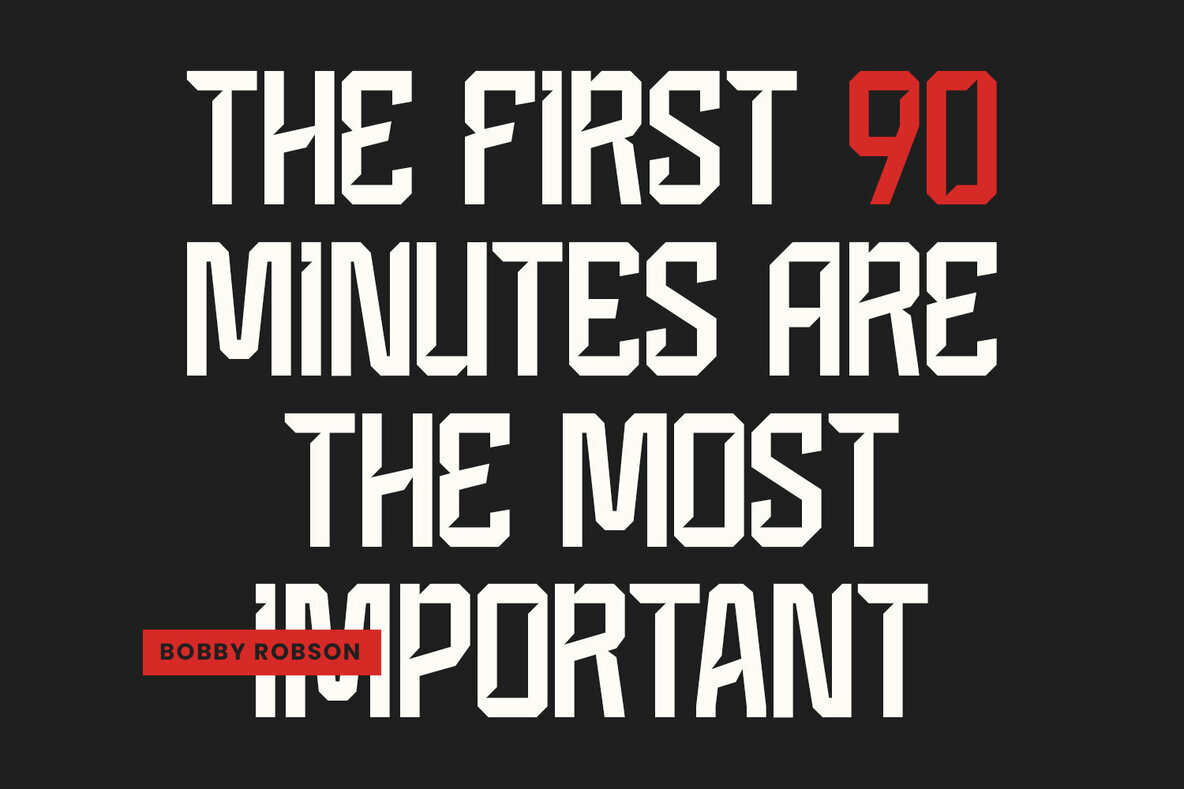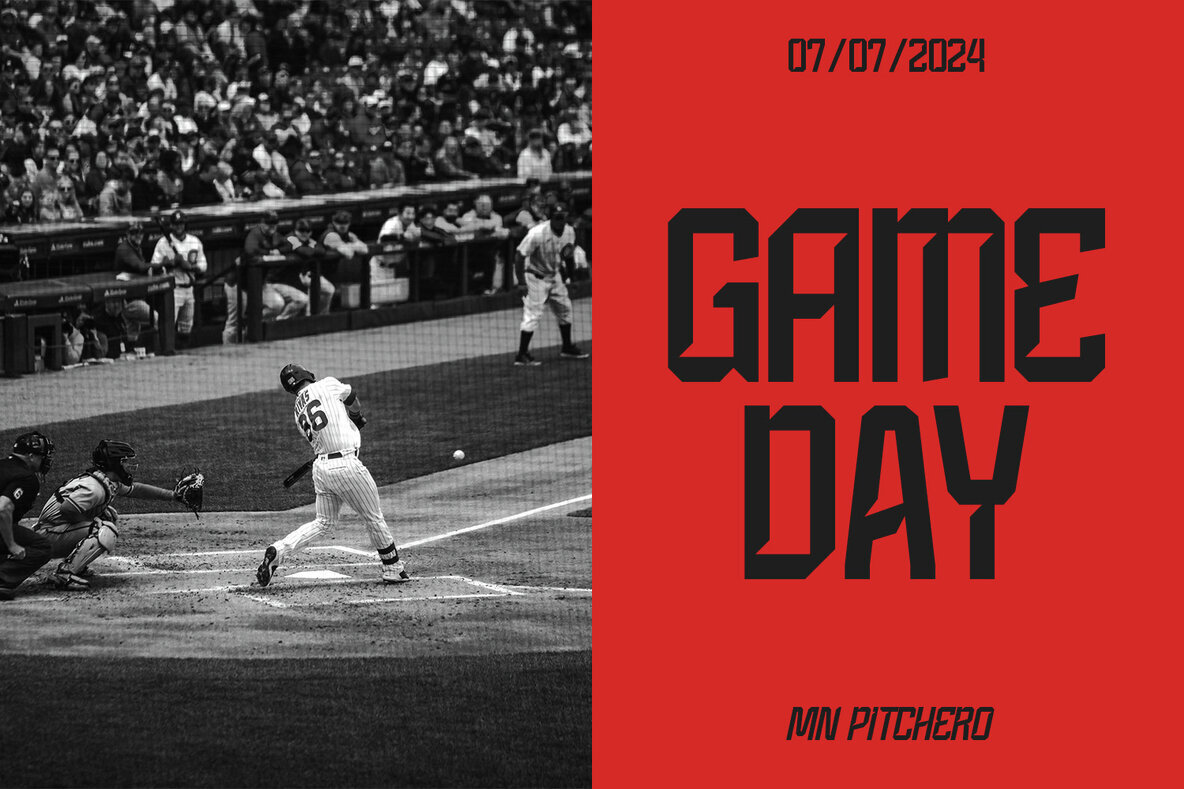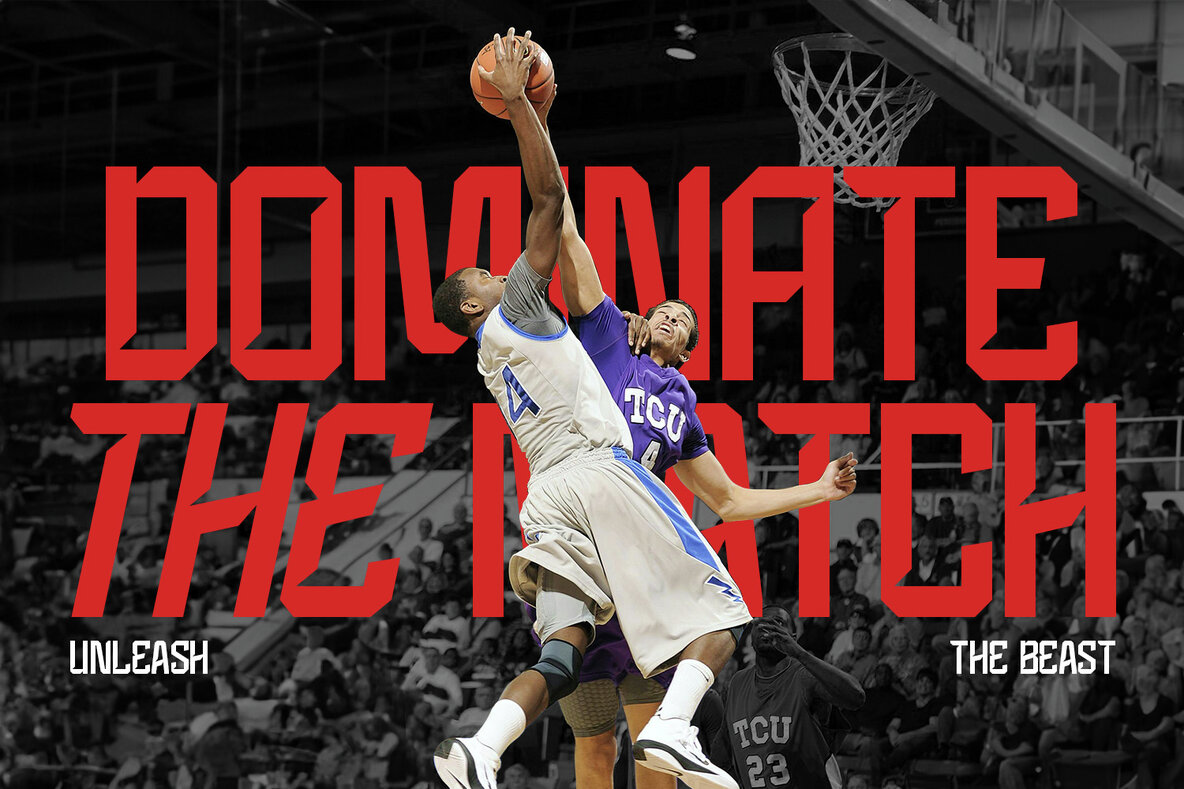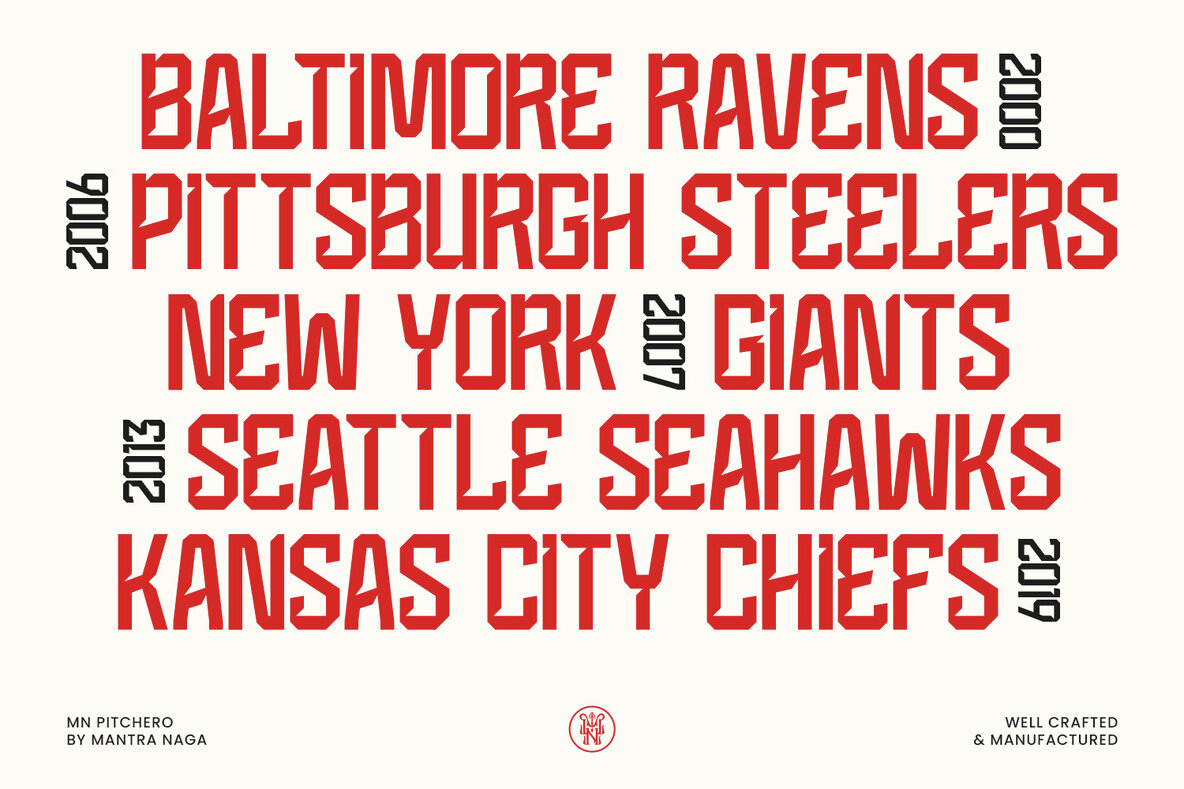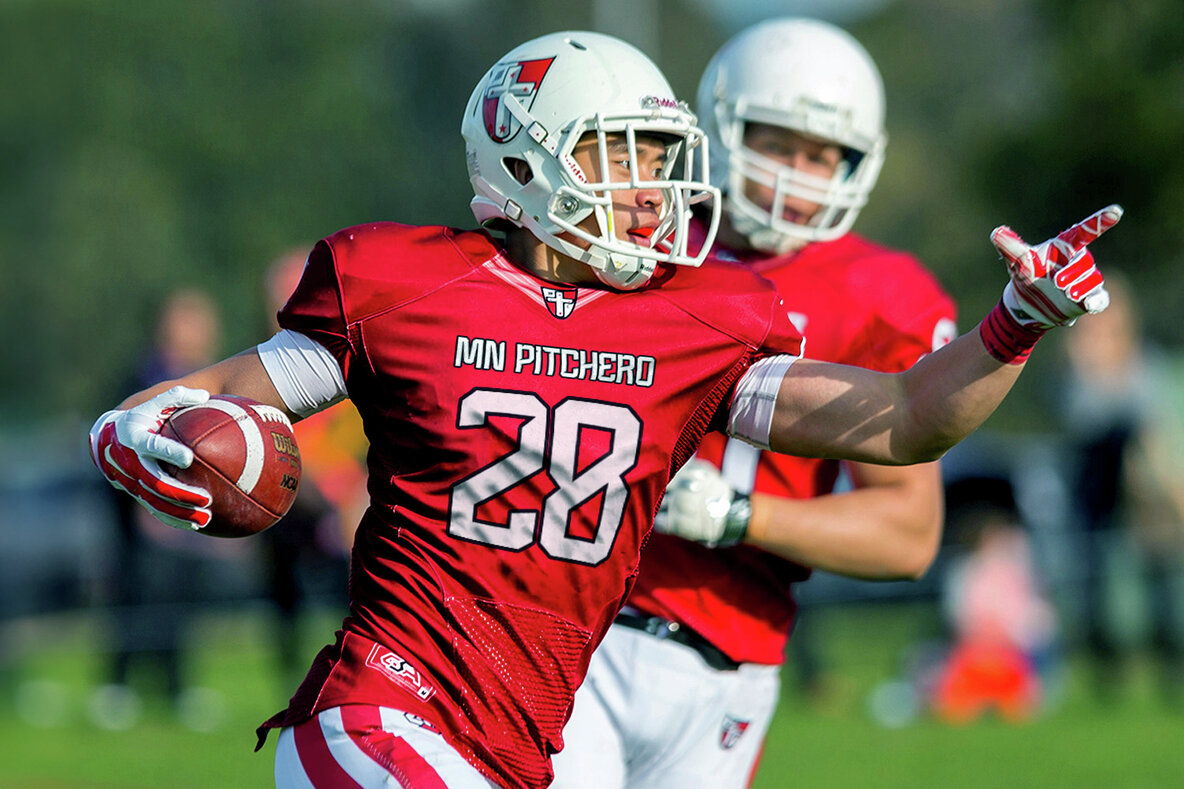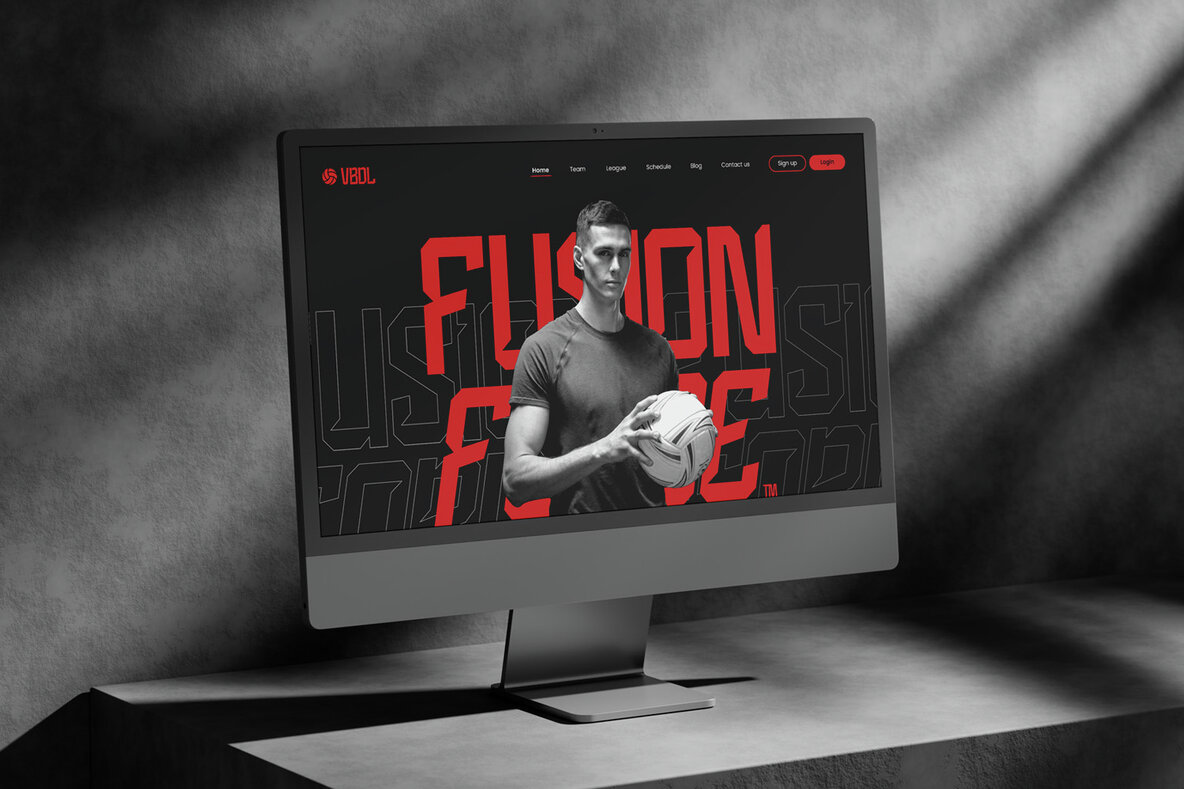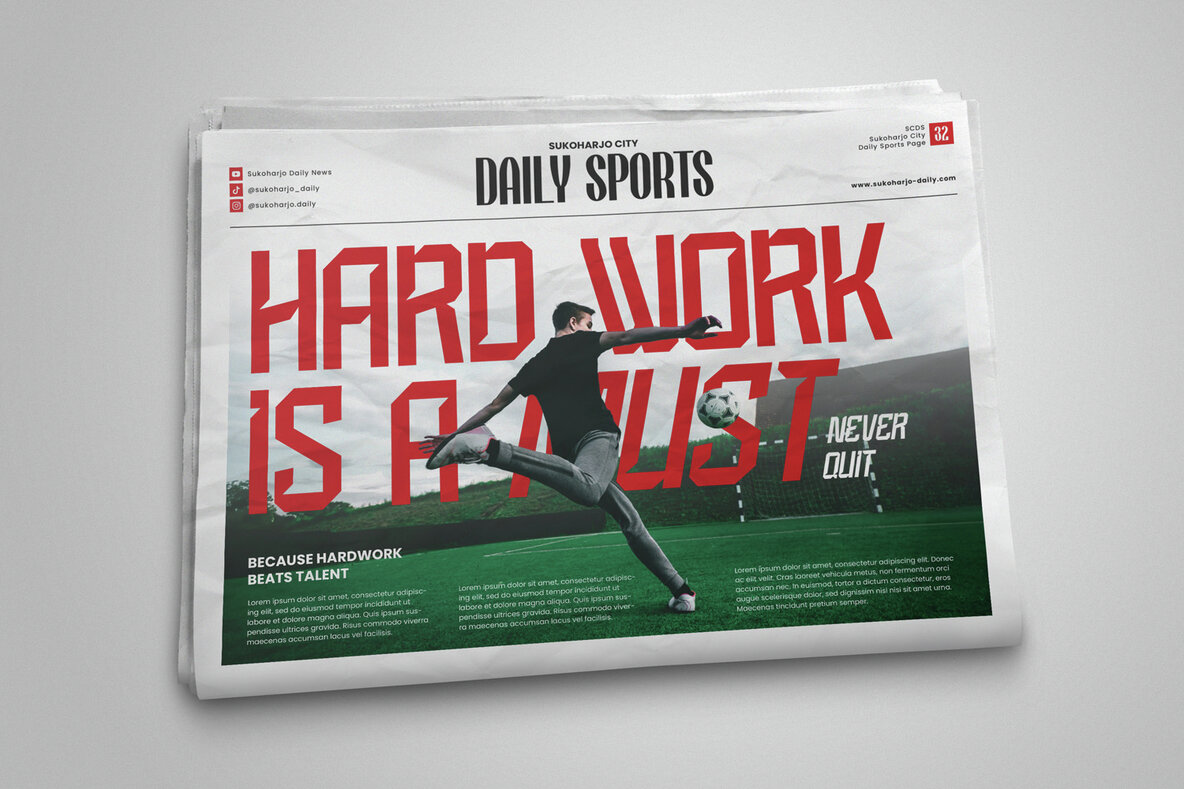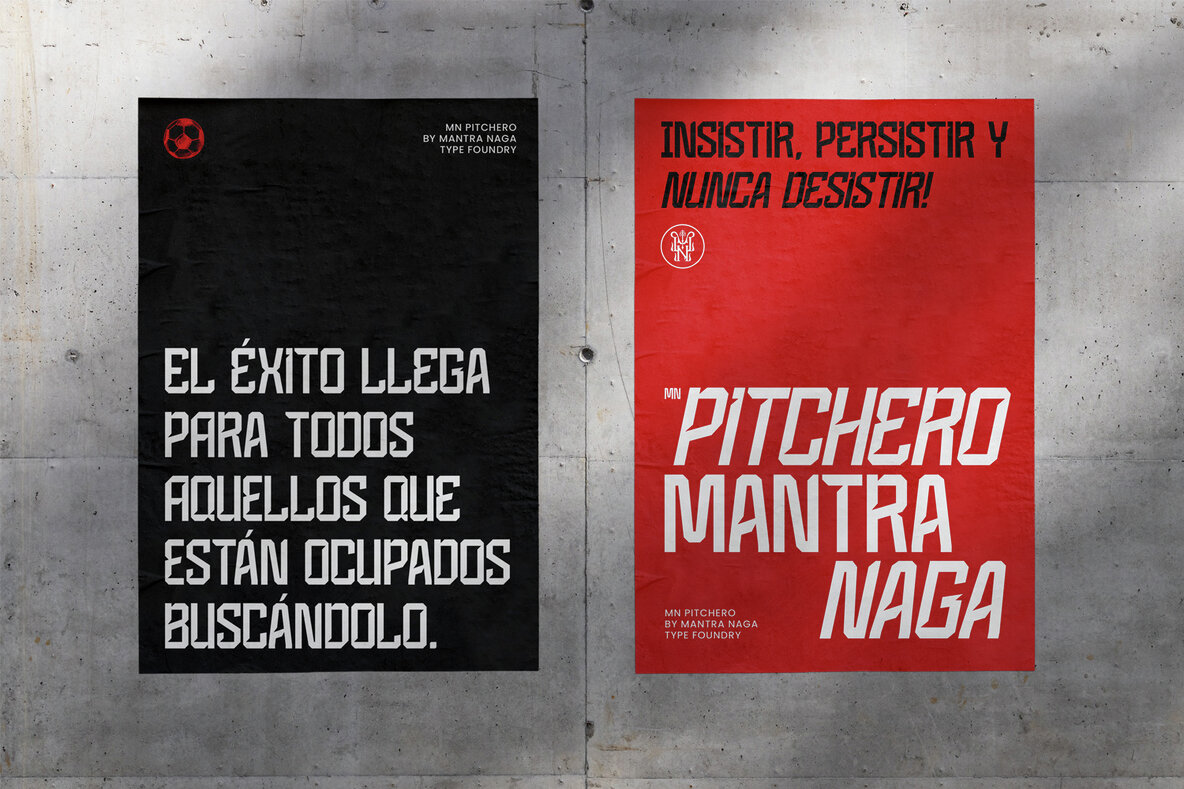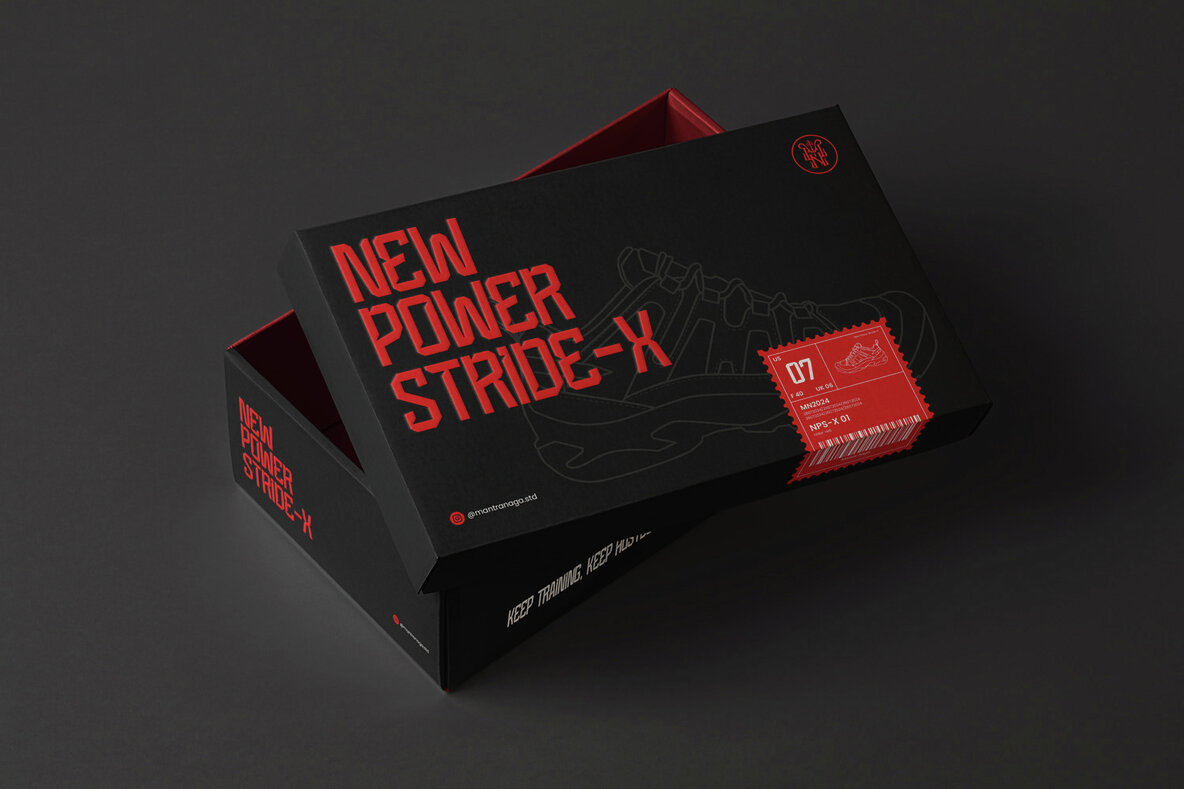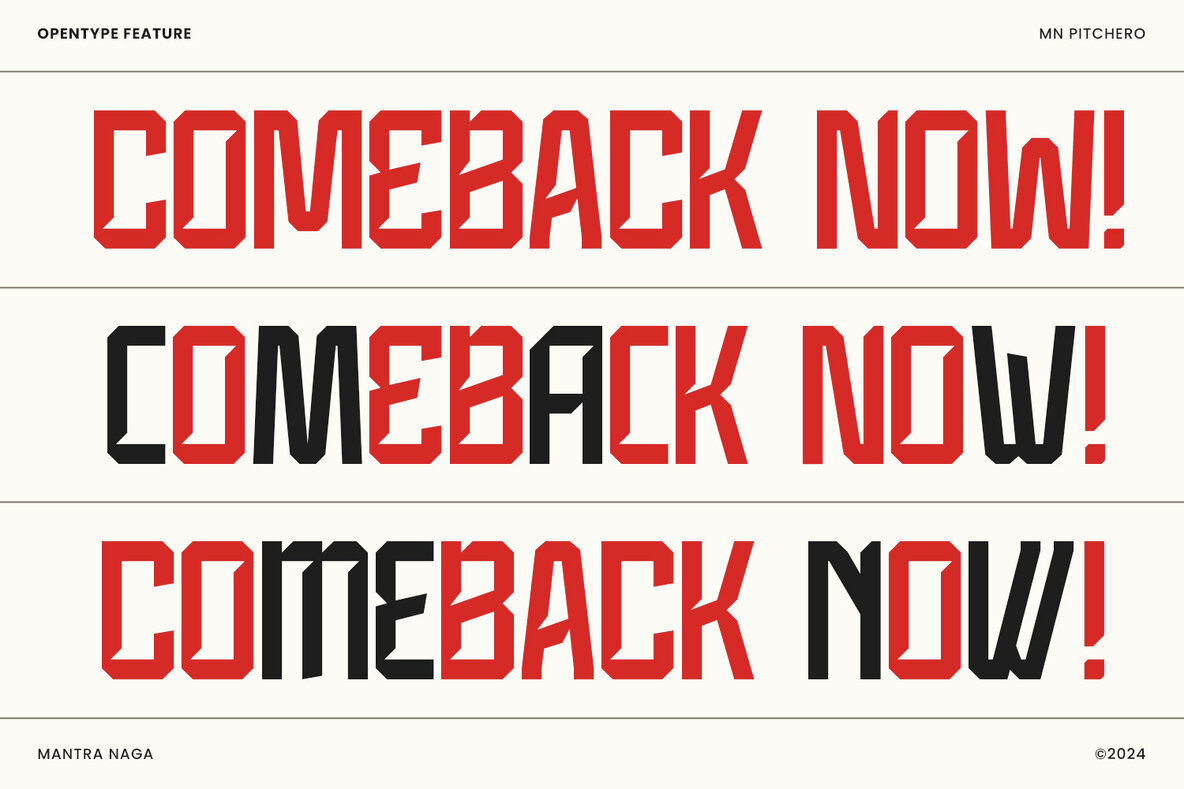
MN Pitchero Font
MN Pitchero is a sport display typeface designed specifically for various sports. With its distinctive octagonal shape while maintaining typographic anatomy, this font ensures optimal legibility and clarity. One unique feature of this font is its thick inktraps, which do not compromise the readability and clarity of the letters. Perfect for all sports-related design needs, this font features all caps with bold, firm, rigid, and daring characters, making it ideal for headlines or highlighted text. It supports 89 international languages and is inspired by the 2024 Indonesian national team jersey number set, also this font created to celebrate international sporting events, Olympics. keyword: sport display, sport font, octagonal, inktrap, display font, all caps, display typeface, font, typography, headline, brand identity, advertising